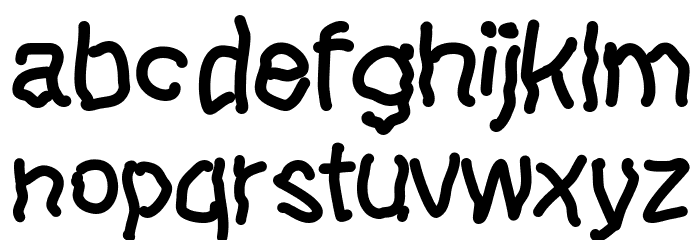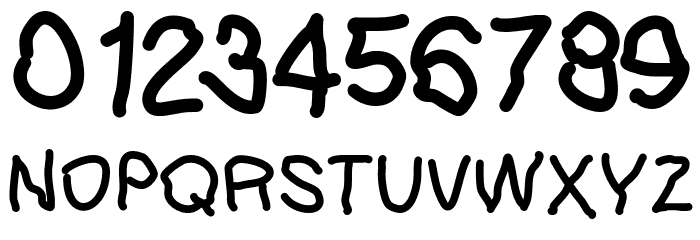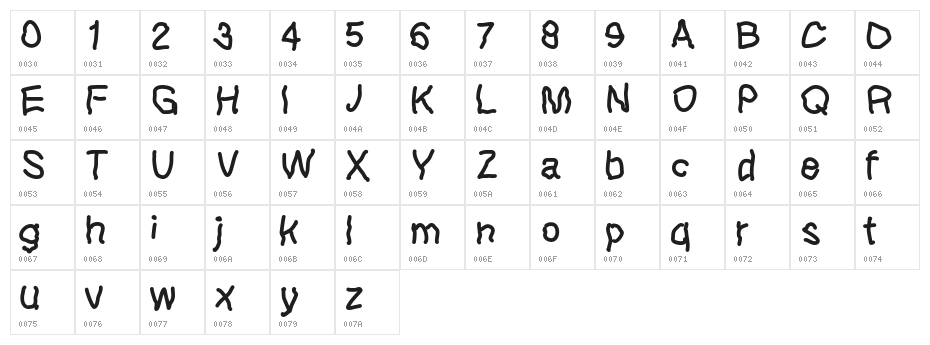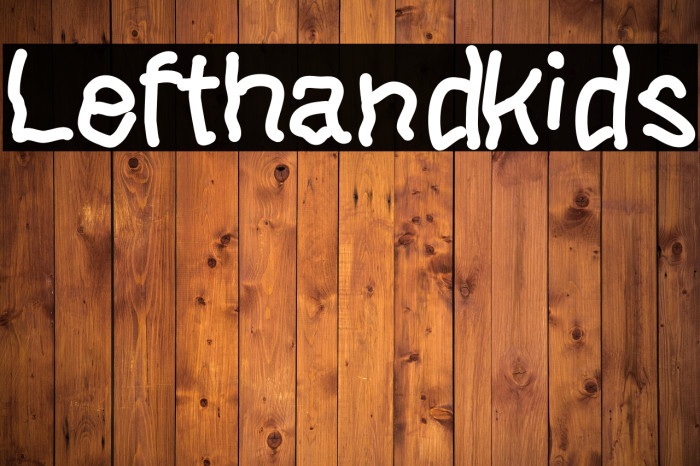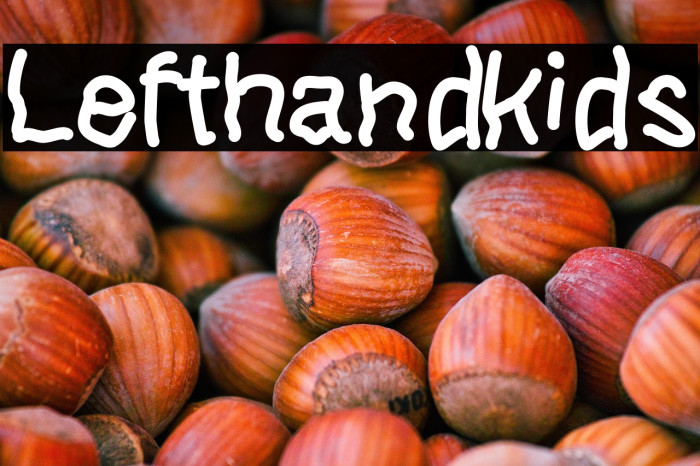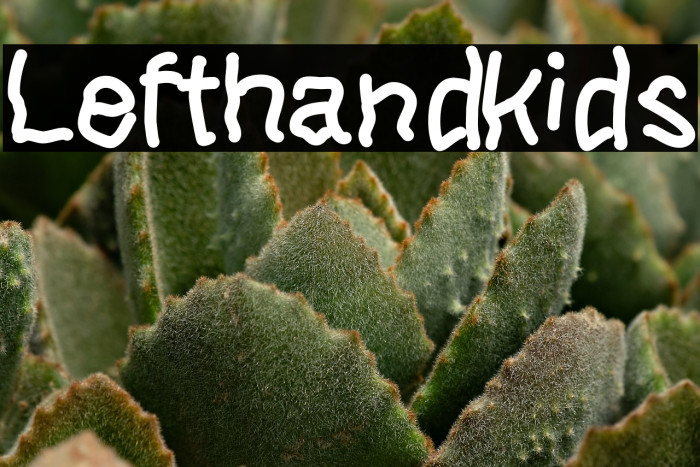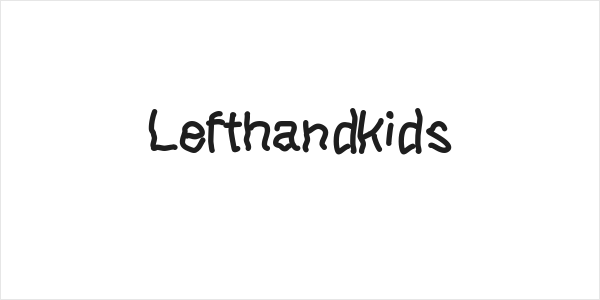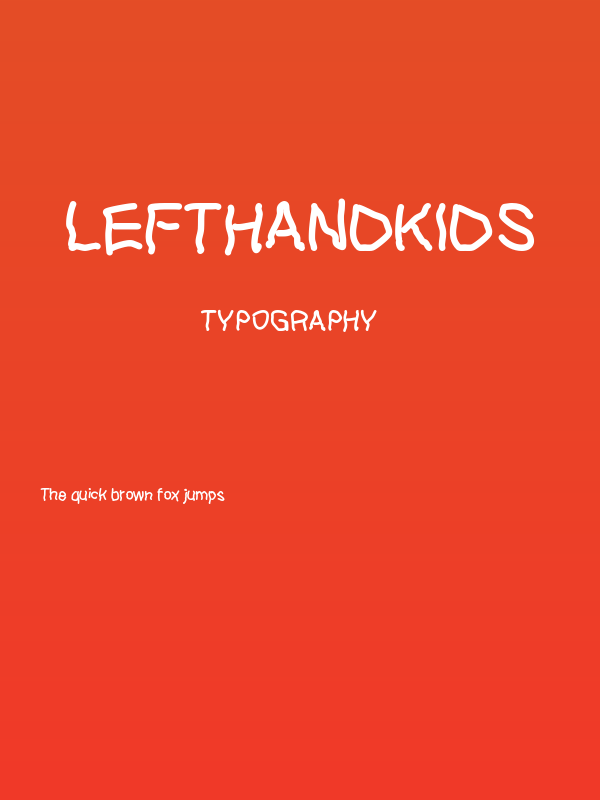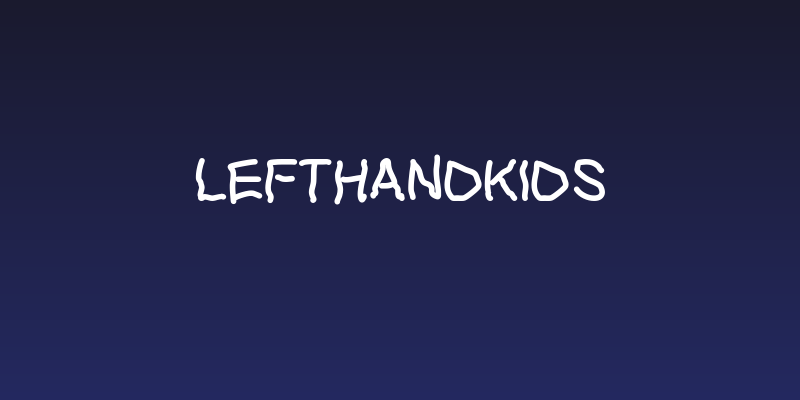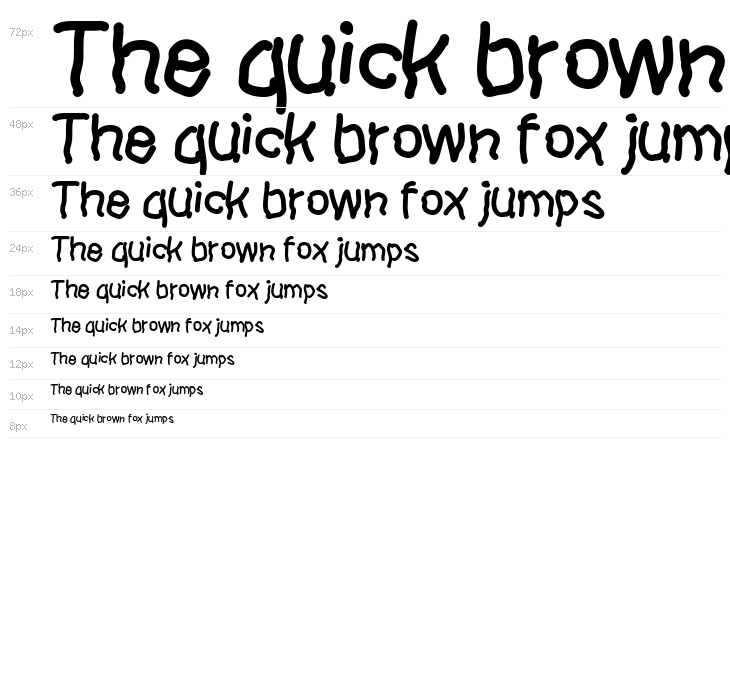
Lefthandkids Font
This playful and whimsical font features a hand-drawn style with a casual, informal appearance. The characters are unevenly shaped, giving a sense of spontaneity and creativity. The strokes are bold and rounded, with a slightly irregular baseline that adds to its charm. The font maintains a consistent thickness throughout, providing a uniform look despite its quirky design. It captures a youthful and energetic vibe, making it ideal for projects that aim to convey fun and lightheartedness. The numbers and special characters follow the same playful style, ensuring a cohesive look across all text elements.
A playful, hand-drawn font with bold, rounded strokes and a whimsical style.
- Proposed Projects: Ideal for children's books, playful branding, casual invitations, and creative posters.
- Overall Style: Playful